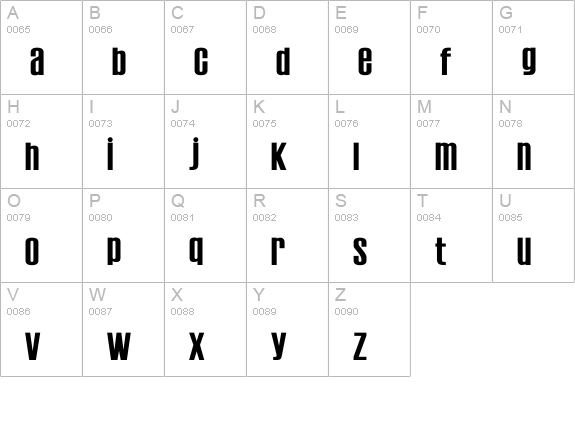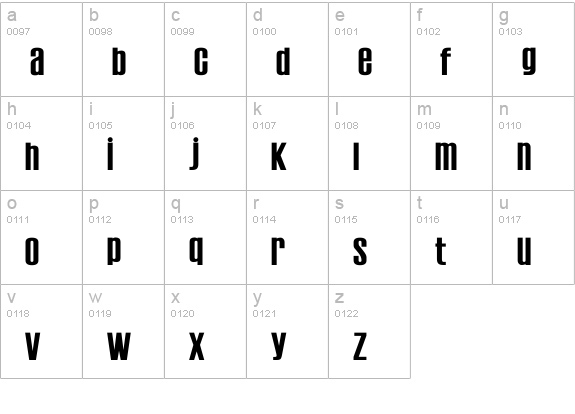
Establo Font Details
Introducing Establo font, a modern and versatile typeface that exudes elegance and sophistication. With its clean lines and unique geometric shapes, Establo is perfect for a wide range of design projects, from branding to editorial to web design. This striking font offers a perfect balance between classic and contemporary design elements, making it a timeless addition to any designer's toolkit. What sets Establo apart is not only its stunning aesthetic appeal but also its accessibility. This font is available for free download at FontsMarket.com, allowing designers of all levels to effortlessly incorporate it into their projects without any cost. Whether you're working on a logo, poster, website, or any other creative endeavor, Establo's versatility and style will elevate your design to new heights. Embrace the beauty and functionality of Establo font today and discover the endless possibilities it offers for your next project. Download it for free at FontsMarket.com and let your creativity soar with this exceptional typeface.